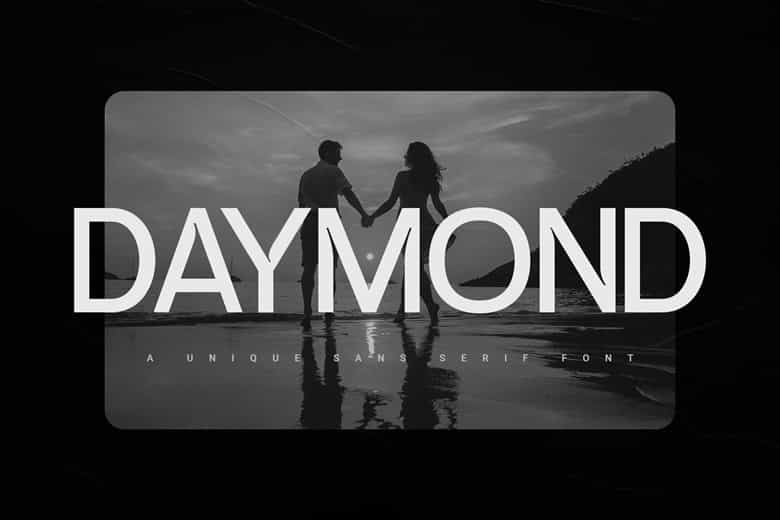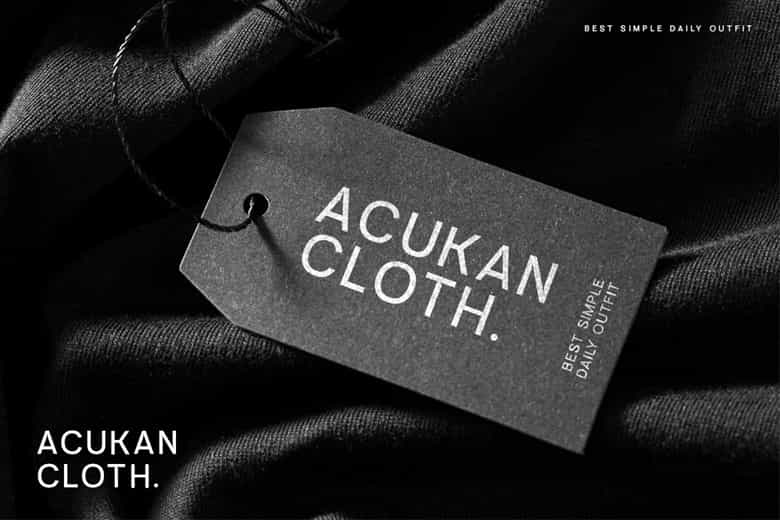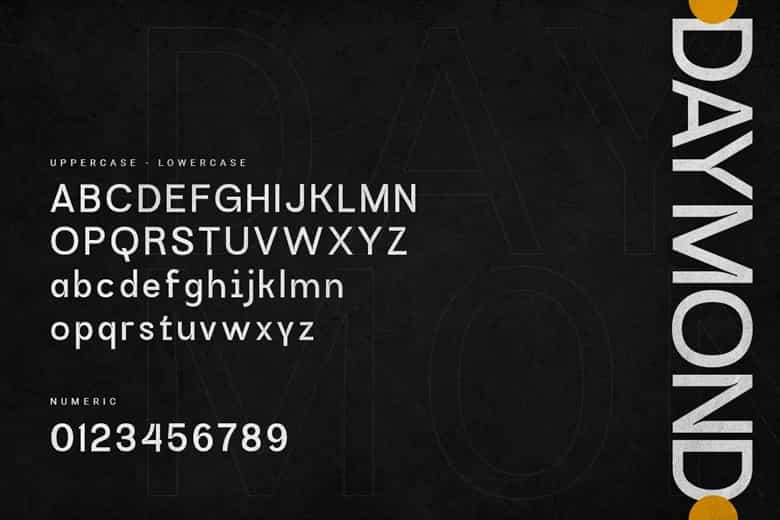
Daymond is a contemporary sans serif typeface with a minimalist elegance with a hint of its own character. Deeply thought, to provide a pure but original feeling, Daymond will be an ideal solution to a broad range of your creative affairs. Sharp lines and balanced proportions have made,